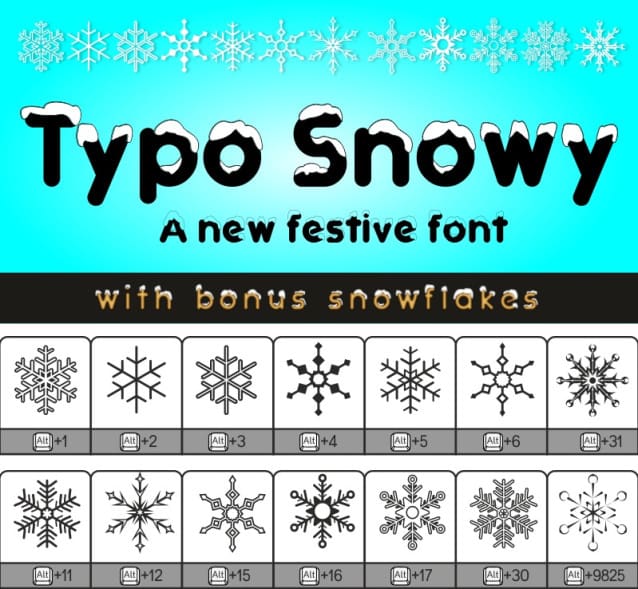
Typo Snowy Font
Typo Snowy Font is a bold display font that blends in with a cool bite. Perfect for any beverage branding project such as logos, t-shirt printing, product designs and more, this font will look amazing in a variety of contexts.
This font family includes one Black OTF font (Typo Snowy BW) and two color SVG Opentype Fonts (Typo Snowy Gold & Turquoise).